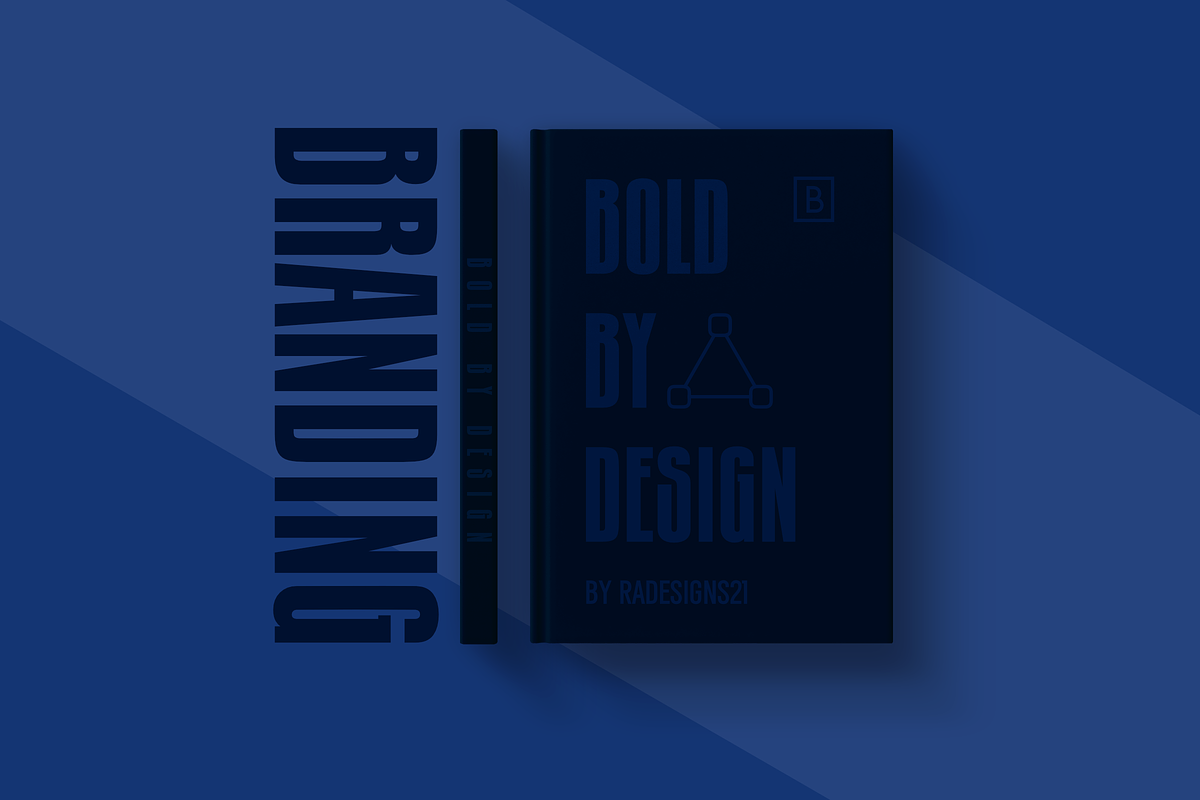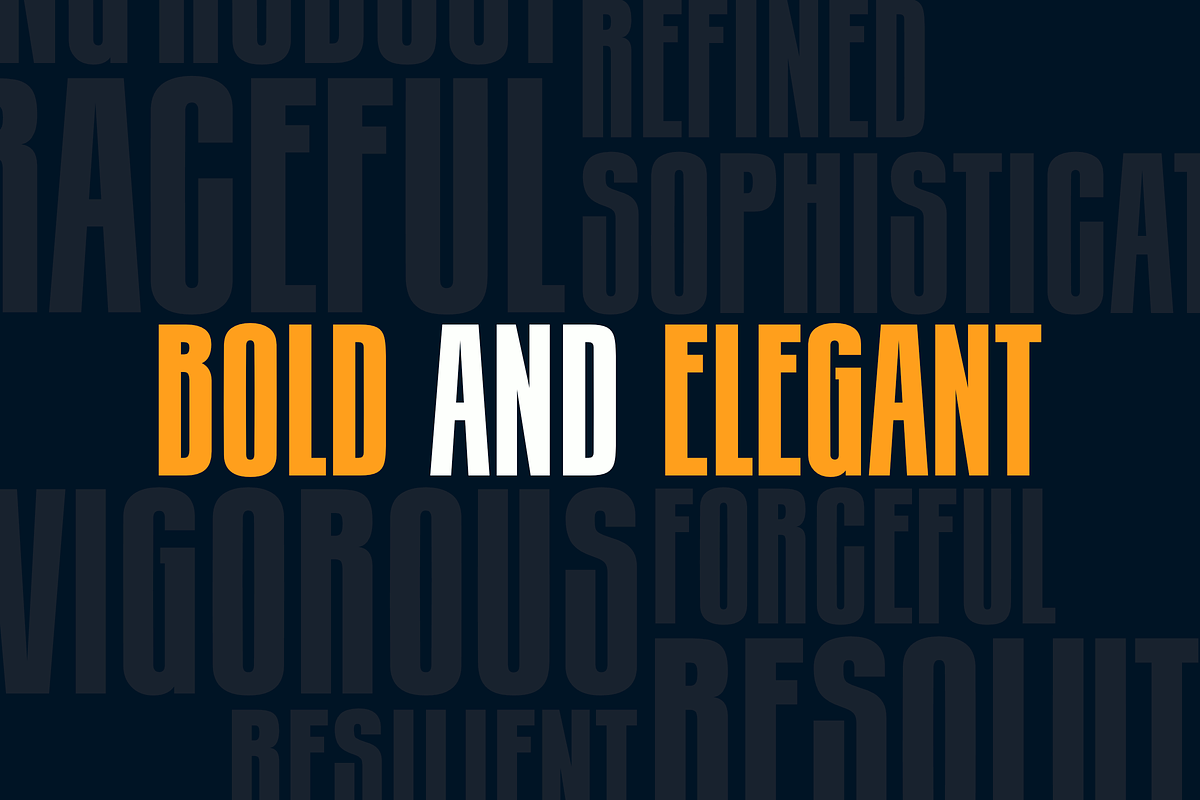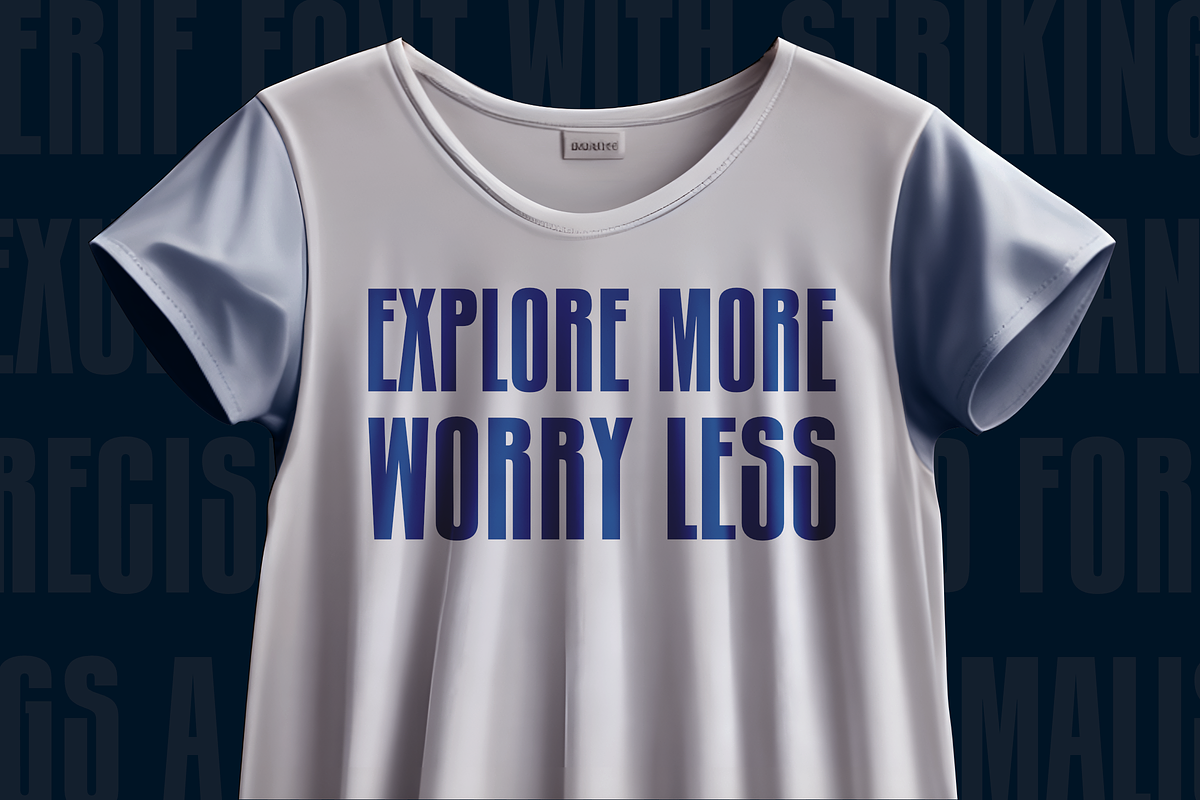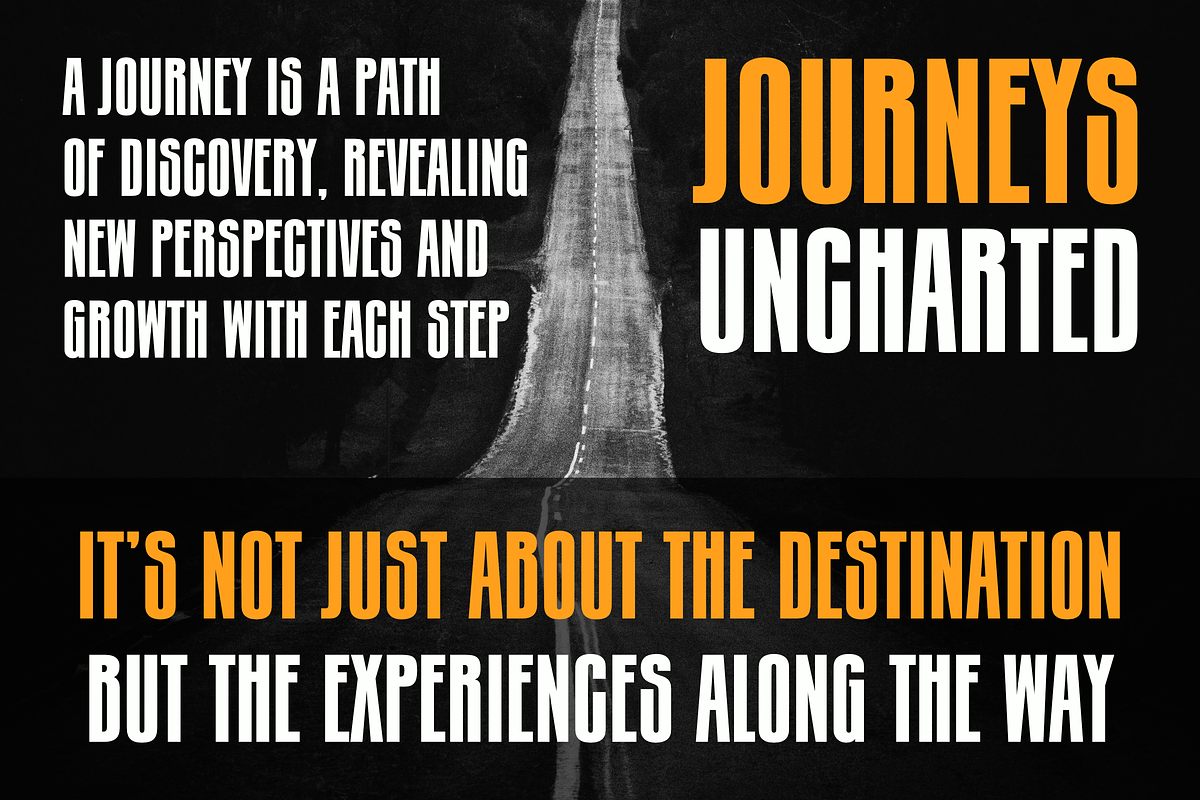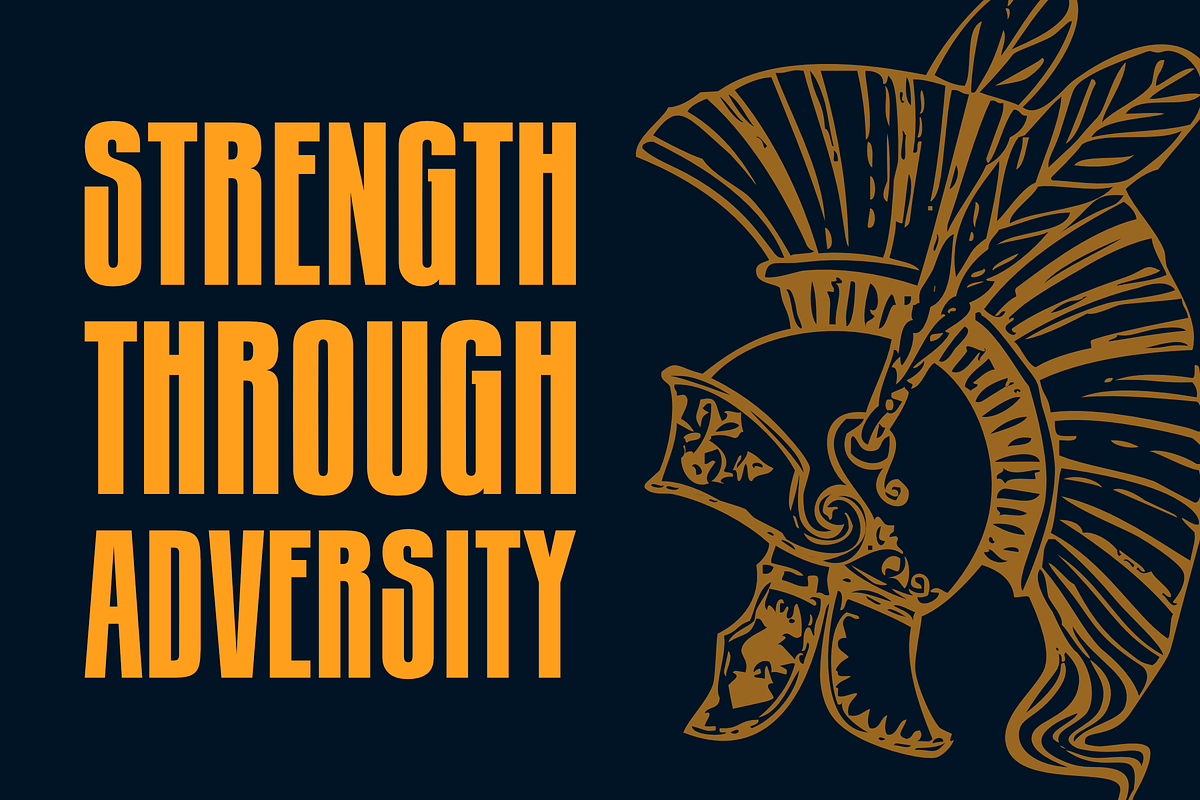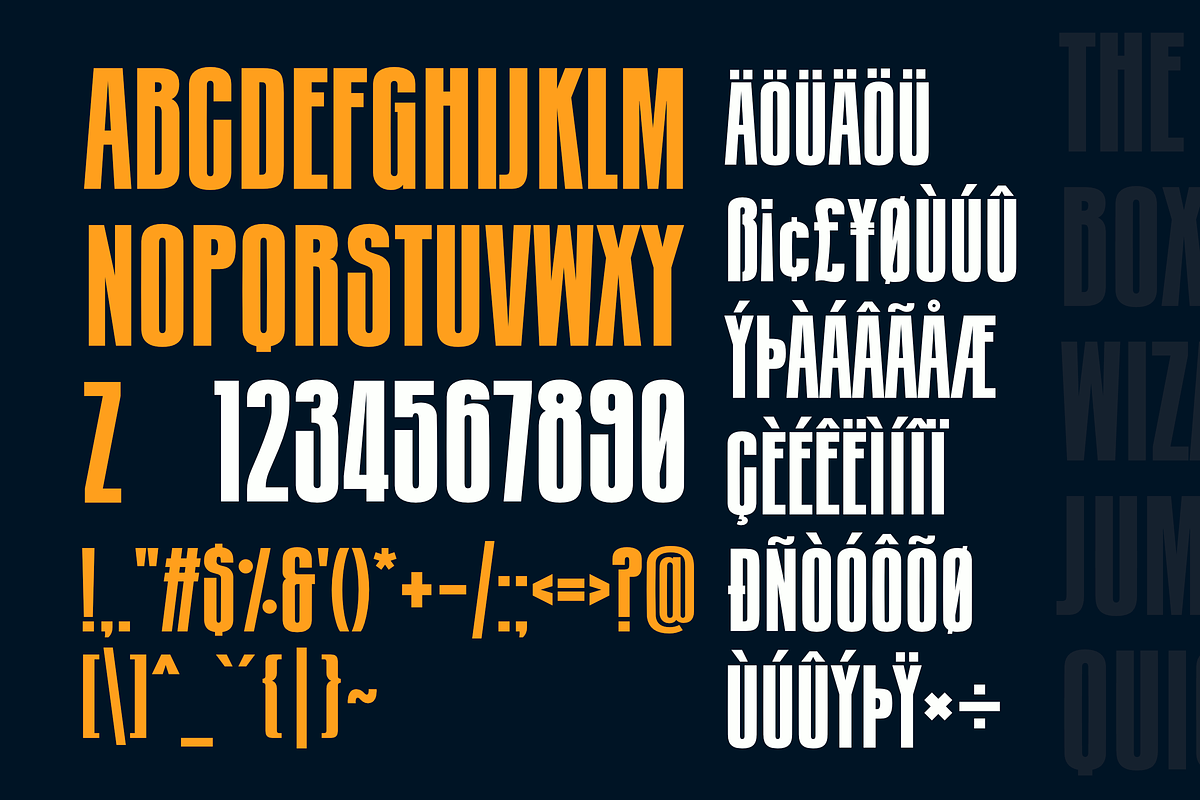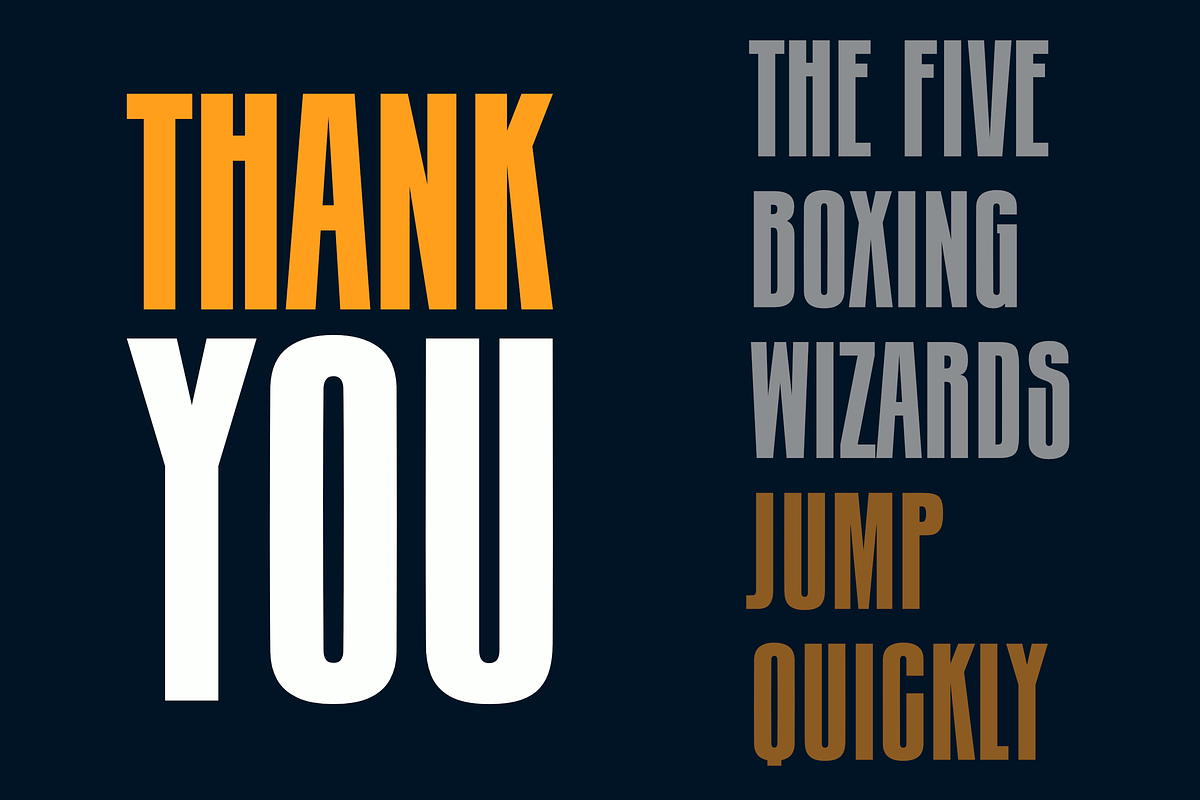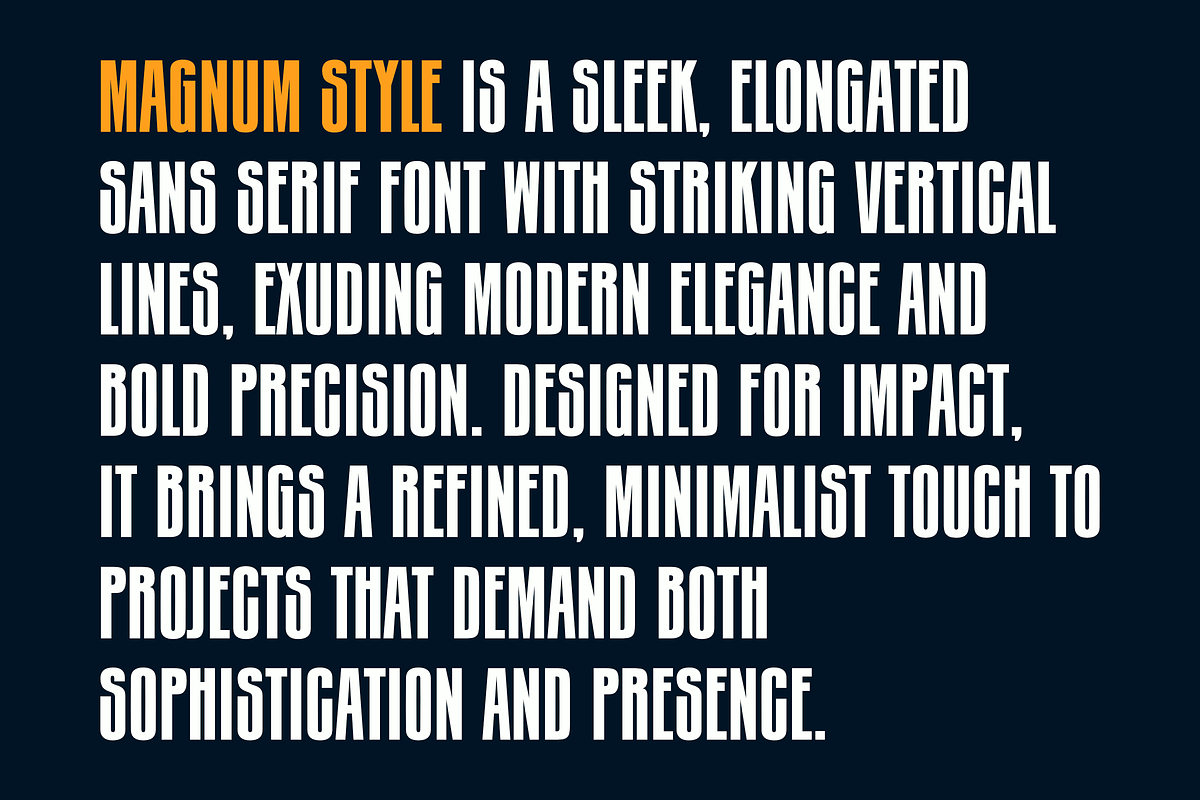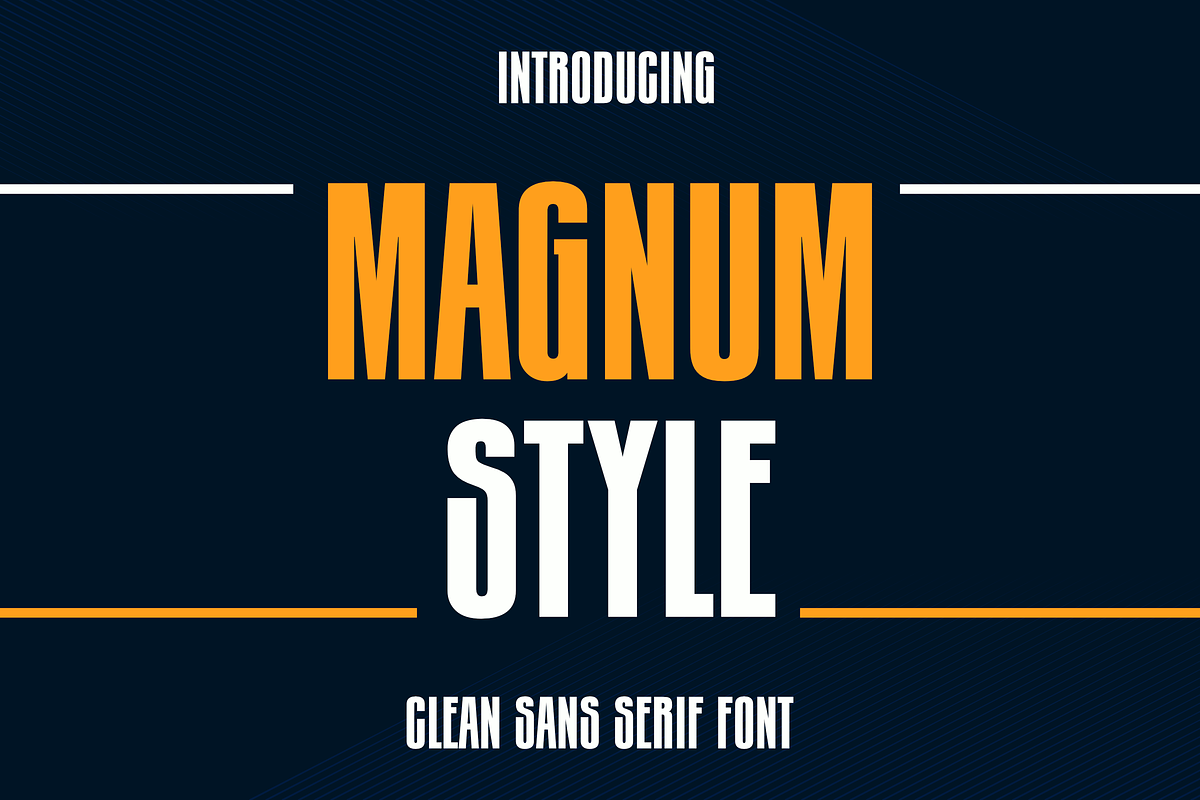
Magnum Style
Magnum Style is a sleek, elongated sans serif font with bold vertical bars and a modern, striking design. Its tall, refined form makes it ideal for contemporary branding and editorial projects that demand a strong presence with a touch of sophistication. The font’s clean lines and unique proportions give it a timeless yet bold appeal, perfect for making a statement in any design.